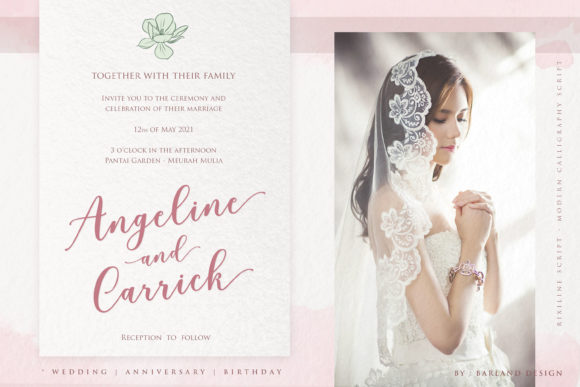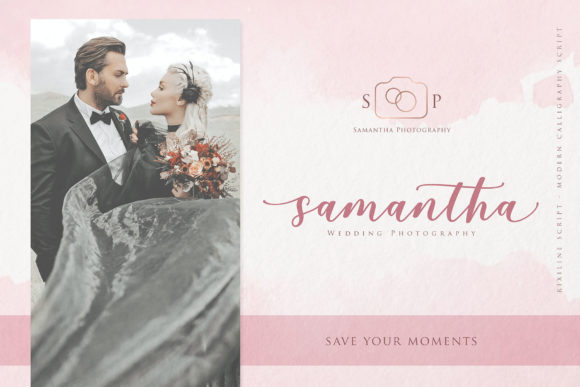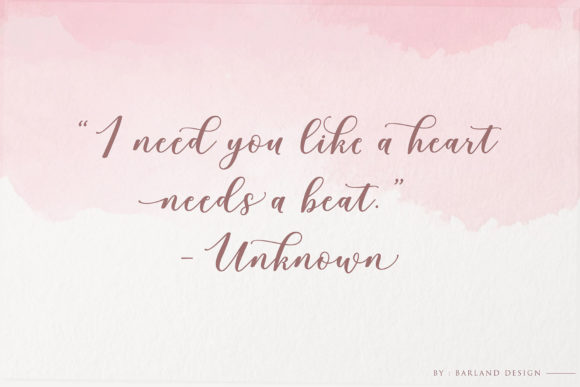
About Rixiline Script Font
Rixiline Script is a light and ravishing script font, featuring characters that dance along the baseline. This font is PUA encoded which means you can access all of the beautiful glyphs and swashes with ease!
This gentle font will look gorgeous on a variety of design ideas.